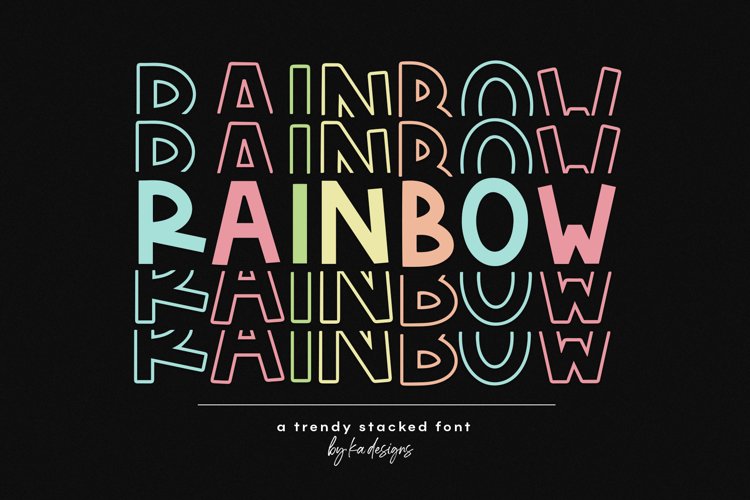
Trendy is a fun stacked font that's perfect for all your designs!
This font was created from my 'Friendship' font!
Trendy will save you tons of time creating your own stacked/mirror designs!
This font does include accent characters.